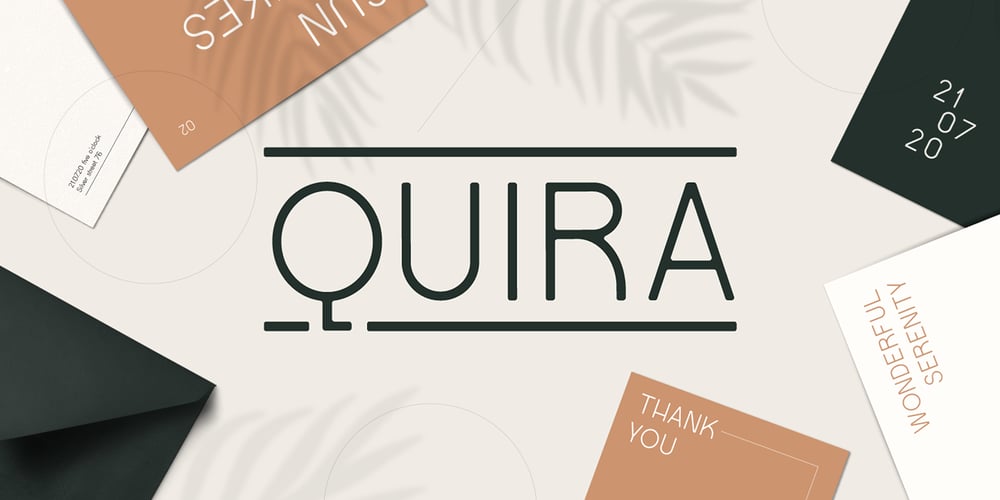
Quira Font Family was designed by Evita Vilaka and published by WildOnes. Quira contains 1 styles and family package options. Quint Extended font has geometric construction with round details that creates elegant letter shapes. Modern and contemporary style and retro details make it an excellent choice for headlines, logotypes, branding, posters and magazines.